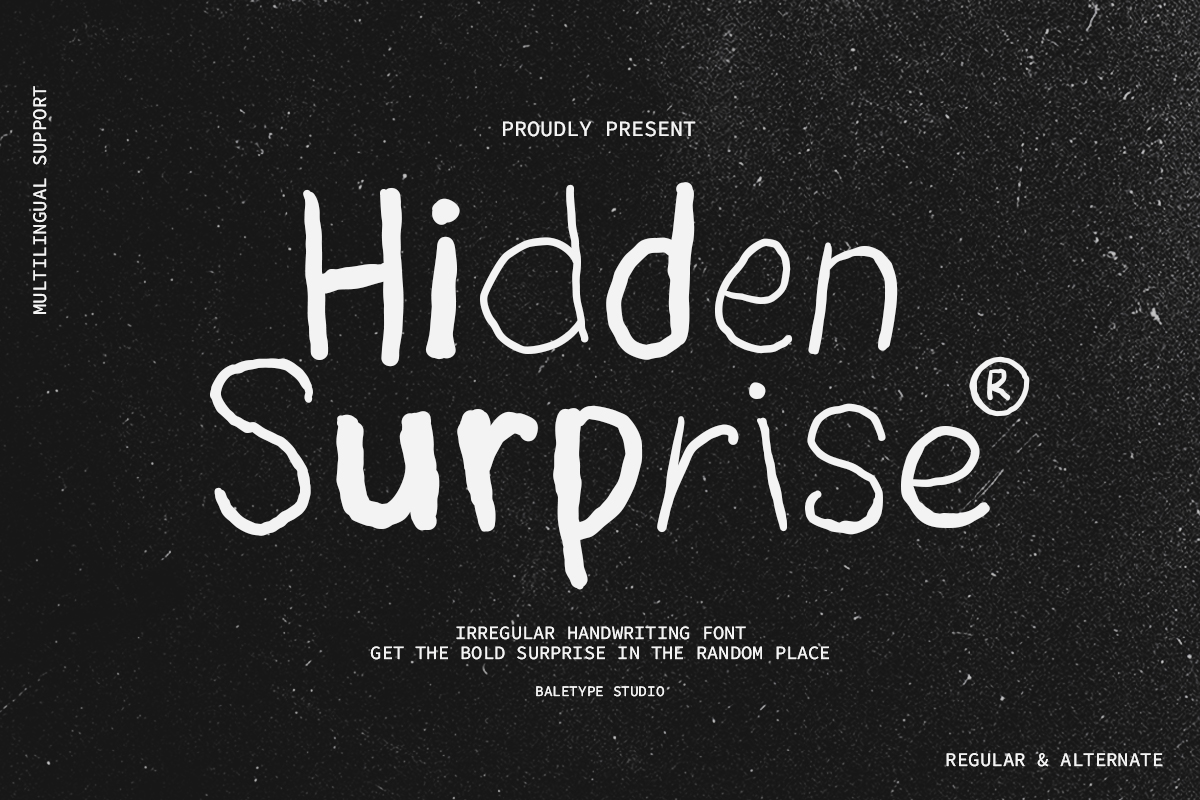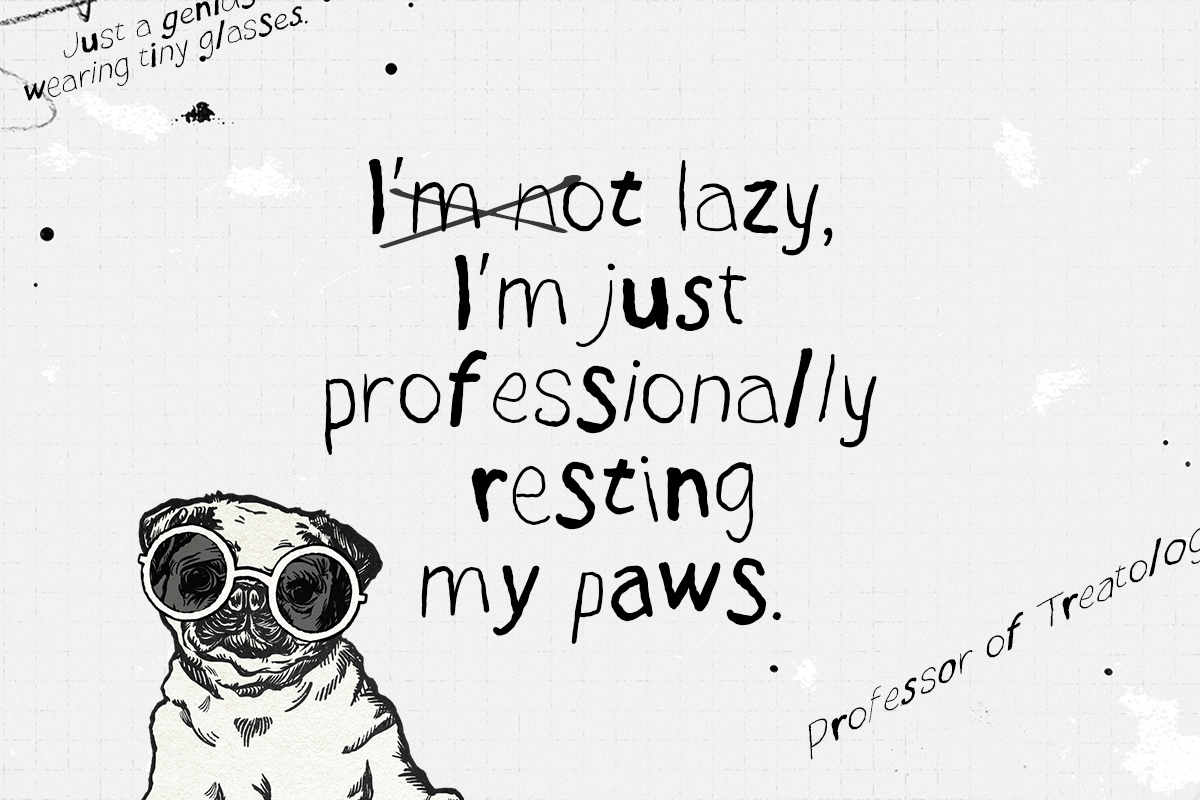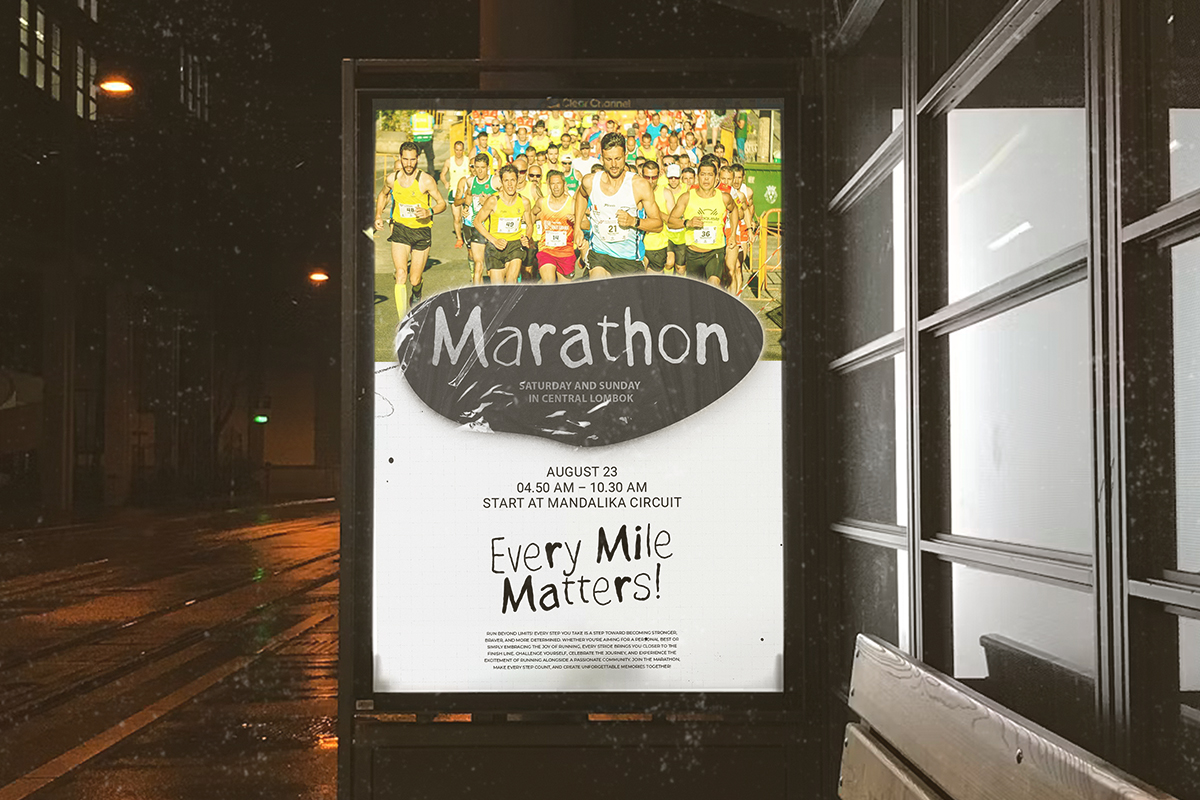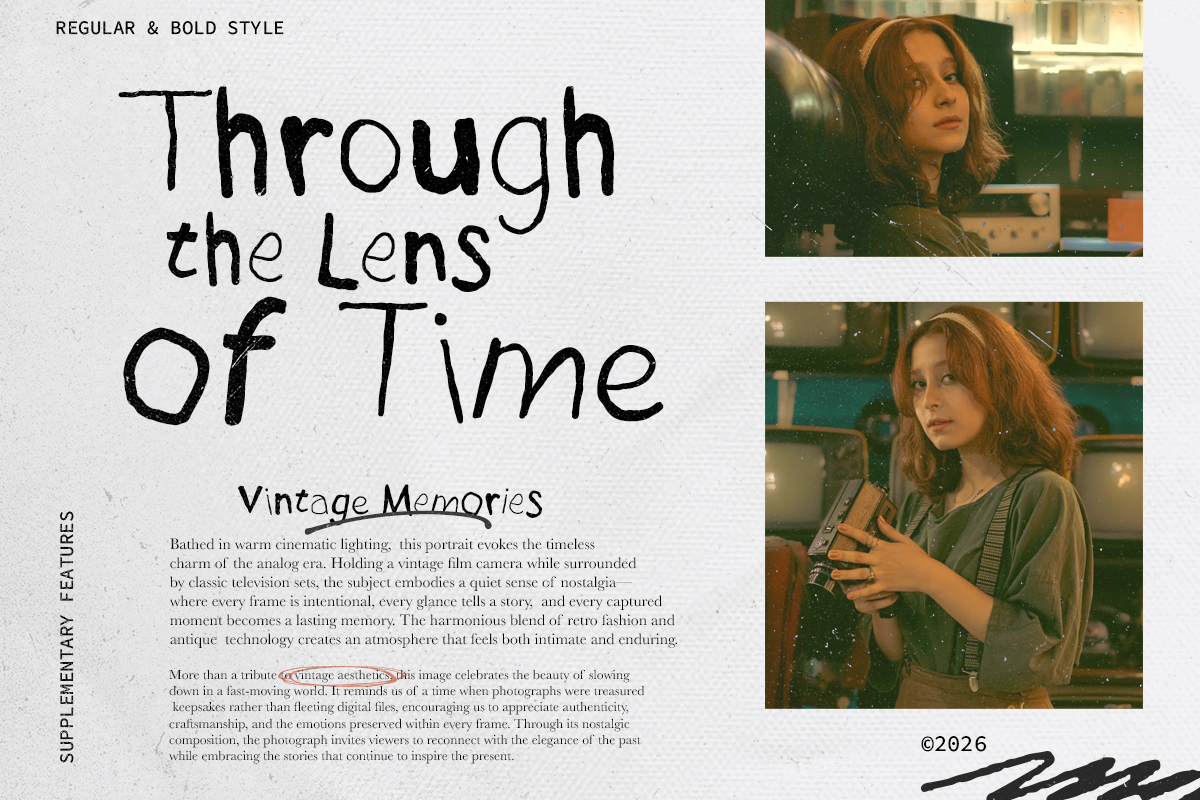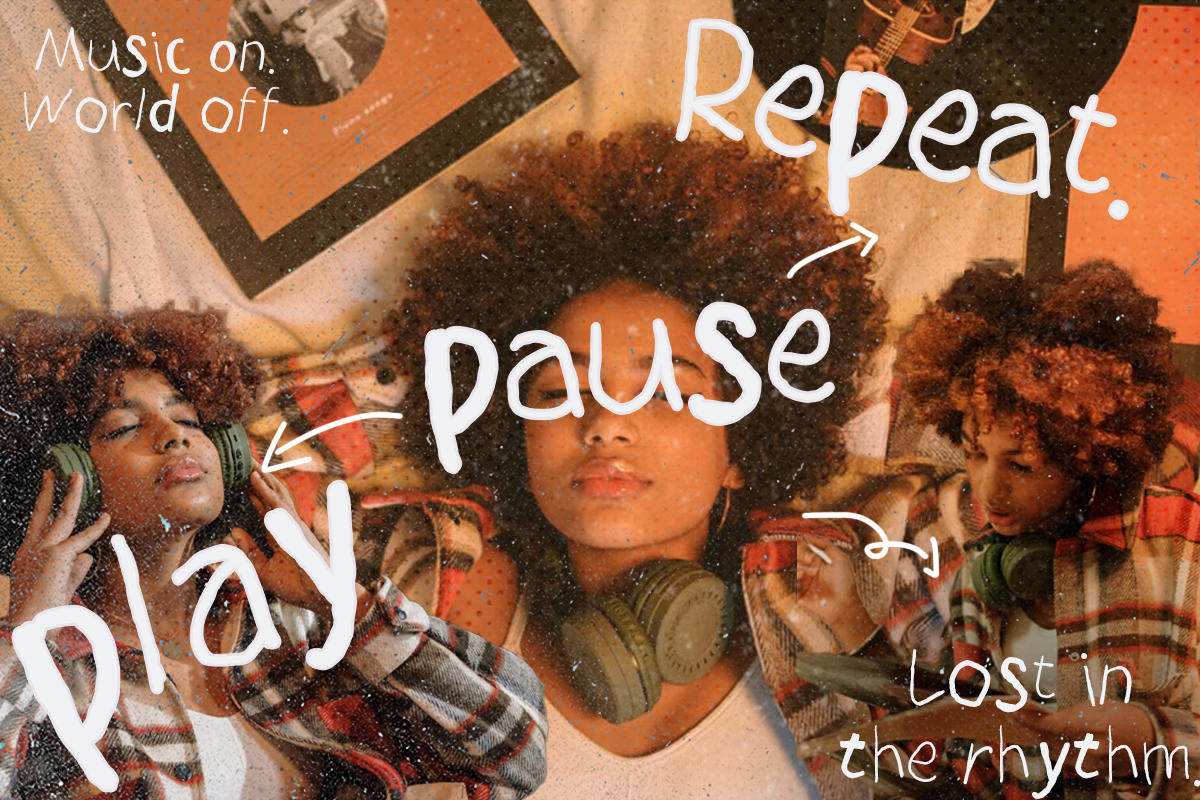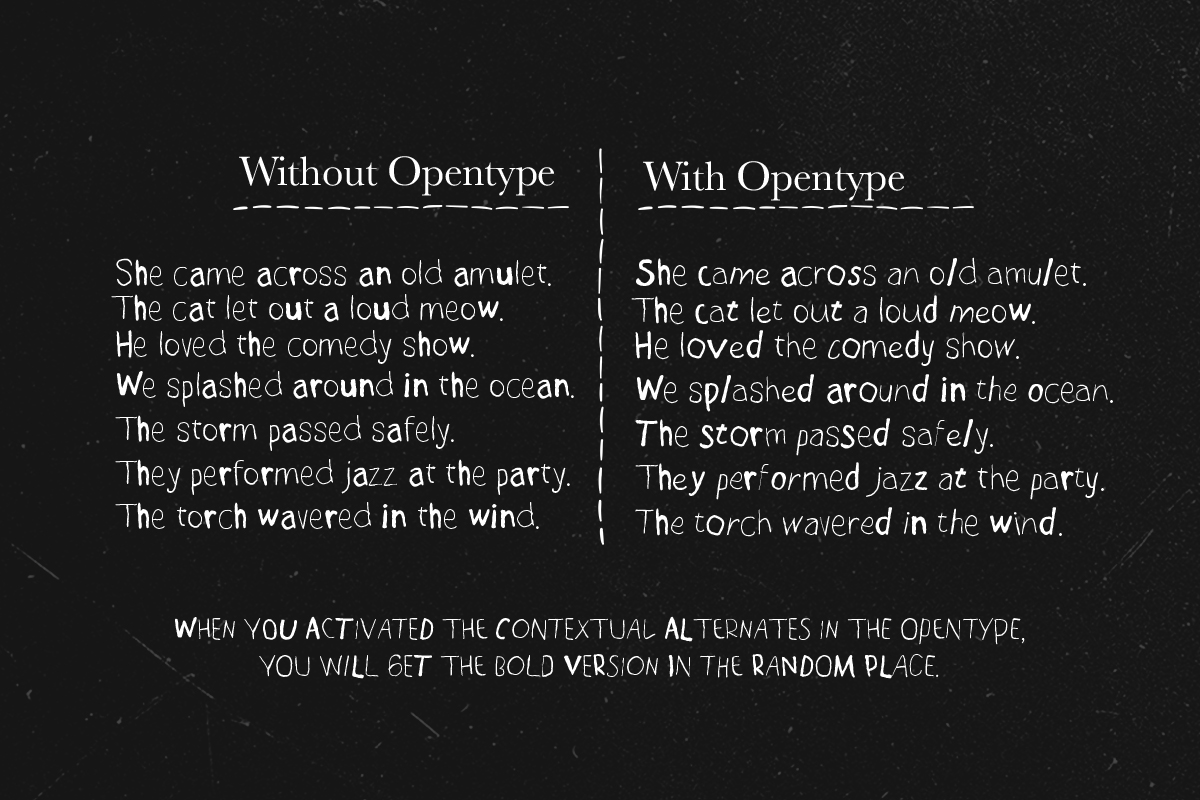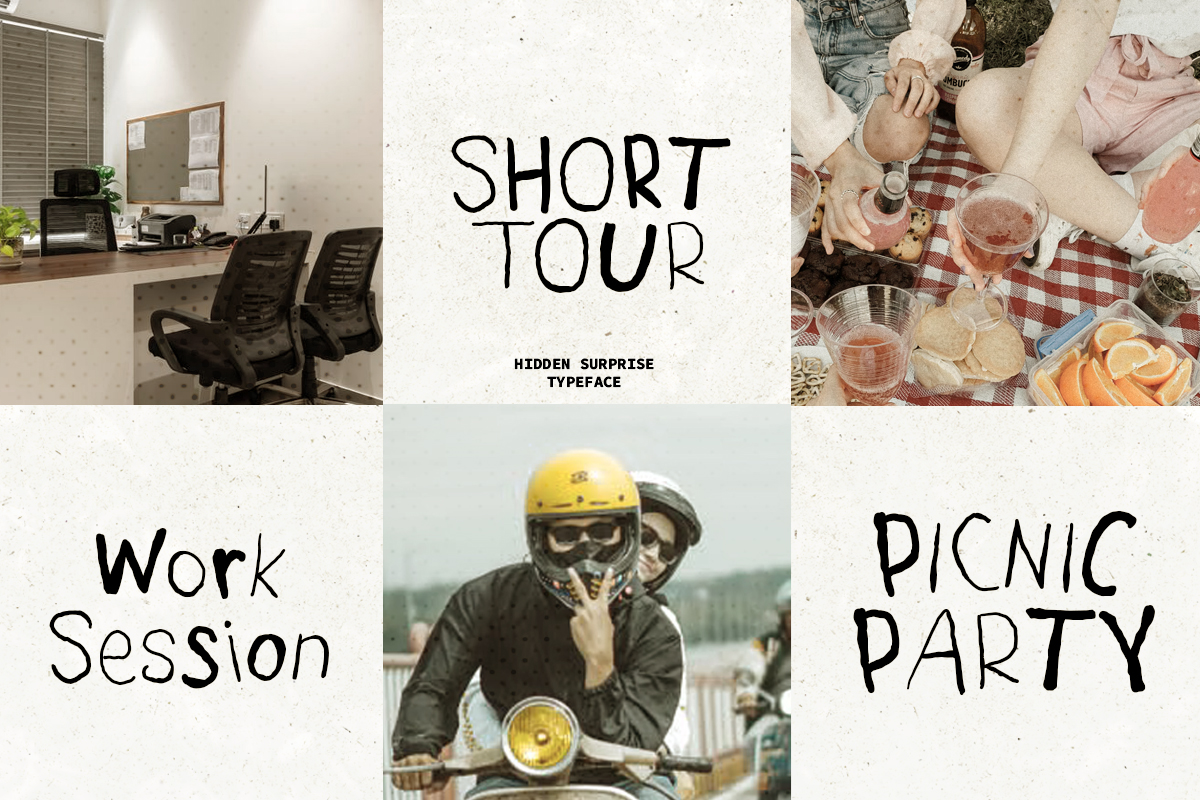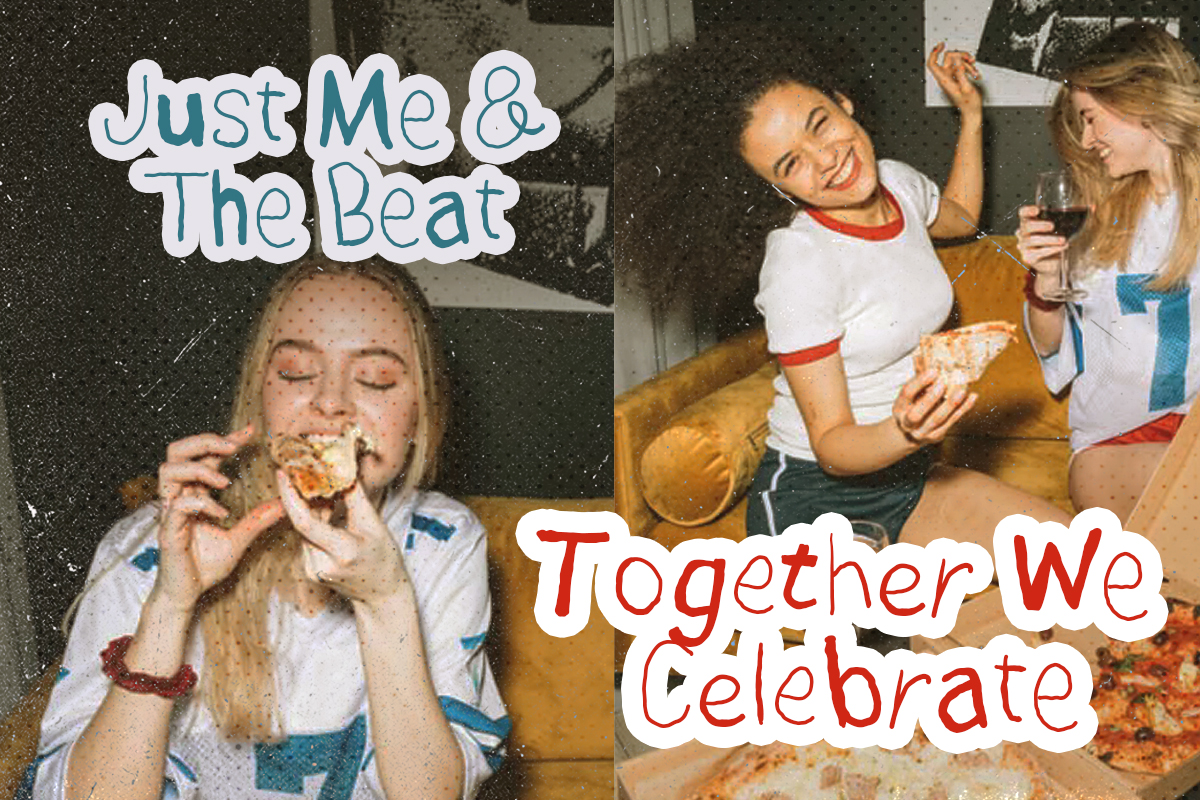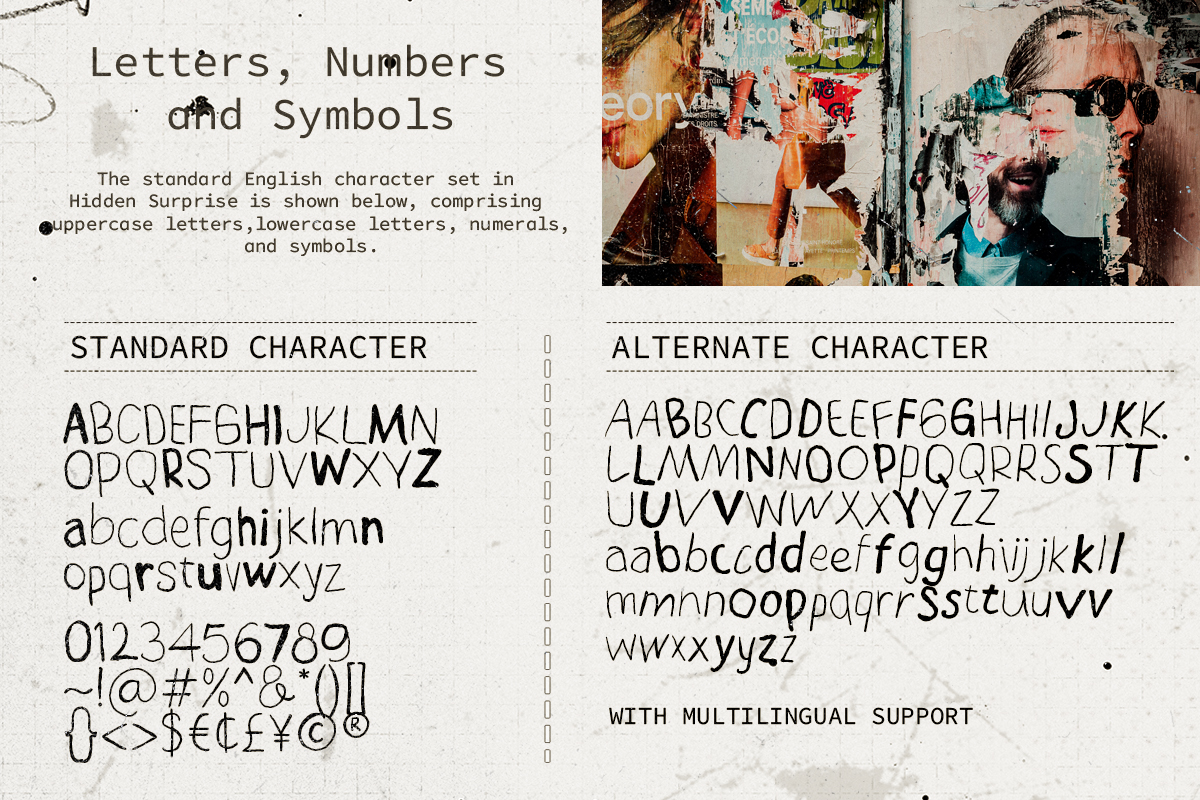
Hidden Surprise is an irregular handwritten font with unique alternates. Comes with two alternates each characters that change automatically with opentype features, you can get surprise with bold alternates that show up randomly in your text. You can use this font for any purposes such as quotes, branding, street art, or any project that needs to look eccentric yet roughly handmade looks. This font also support multi language.
Hidden Surprise – Irregular Font
Hidden Surprise is an irregular handwritten font with unique alternates.